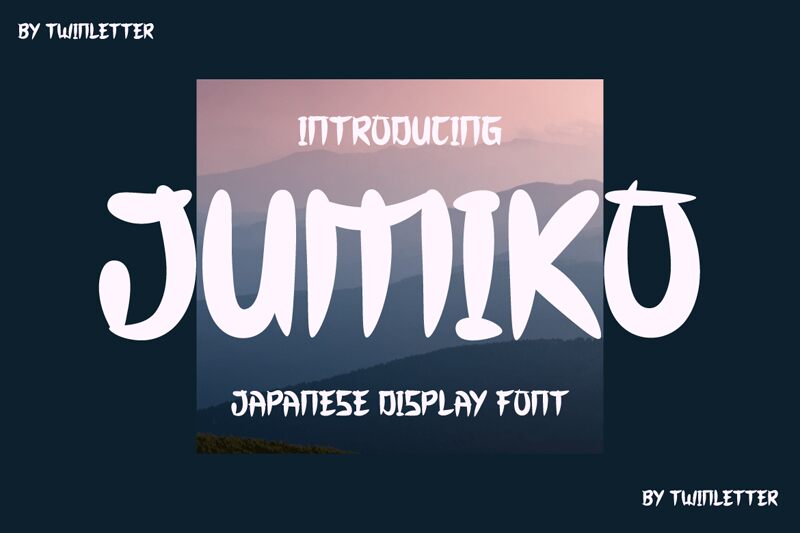
Jumiko, the bold Japanese font by twinletter, is a modern and versatile typeface that is perfect for all your creative projects. With its clean lines and traditional Japanese style, Jumiko is suitable for branding, packaging design, and editorial projects. Its bold weight makes it a great choice for headlines and titles that need to grab attention. The unique foreign font style of Jumiko adds an element of exoticism to your designs that will make them stand out from the crowd. Whether you're designing a website or a print piece, Jumiko is the perfect choice to add some international flair to your work.